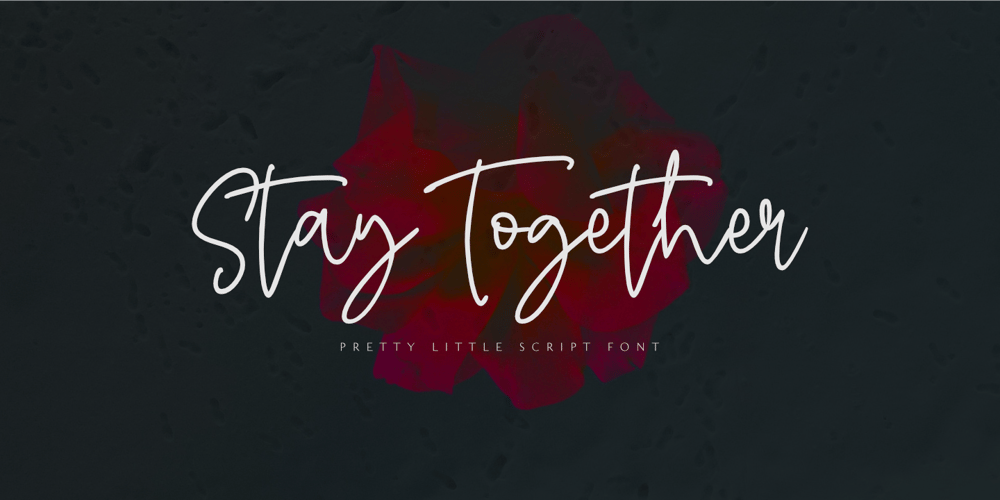
Stay Together Font Family was designed by Aldy Sidik and published by Epiclinez. Stay Together contains 1 styles and family package options. Stay Together is a pretty and lovely script font. It is a nice choice for creating eye-catching logos, branding, and quotes.This script font is supporting more than 66 languages, which include: Afrikaans Albanian Catalan Danish Dutch English Estonian Finnish French German Italian Norwegian Portuguese Spanish Swedish Zulu, and more.So what’s included : Basic Latin A-Z & a-z. Numbers, symbols, punctuations, and ligatures Accented Characters : ÀÁÂÃÄÅÆÇÈÉÊËÌÍÎÏÑÒÓÔÕÖØŒŠÙÚÛÜŸÝŽàáâãäåæçèéêëìíîïñòóôõöøœšùúûüýÿžß Thank you